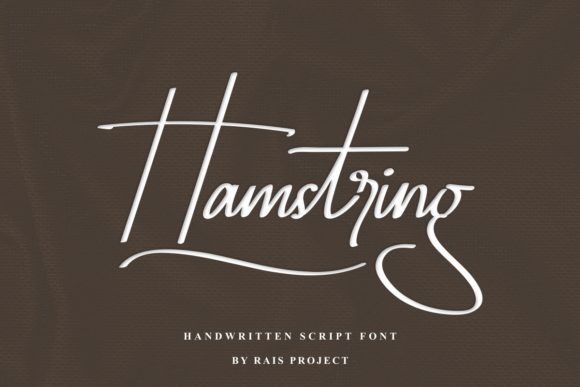
Embrace the Enchanting Hamstring Font: A Script Masterpiece for Your Creative Endeavors
Immerse yourself in the world of typography with Hamstring, a captivating script font that exudes elegance and sophistication. Its delicate strokes, reminiscent of a ballet dancer's poise, bring a touch of grace to your designs. Hamstring's clean, thin, and smooth vibe adds an aura of refinement, making it a perfect choice for a multitude of projects.
Unleash Your Creativity: Discover the Myriad Possibilities of Hamstring
With Hamstring, the possibilities are endless. Whether you're crafting eye-catching logos, designing stunning invitations, or adding a touch of flair to your social media posts, this font will elevate your creations to new heights. Its versatility extends to both digital and print media, making it an indispensable tool for graphic designers, crafters, and anyone seeking to make a lasting impression.
Leave a Lasting Impression with Hamstring: Your Signature Style Awaits
Elevate your email signature to new heights with the charm of Hamstring. Its refined strokes will add a touch of professionalism and personality to your correspondence, ensuring that your messages stand out and leave a lasting impression. Hamstring's delicate script will make a statement in any context, whether you're communicating with clients, colleagues, or friends.
Dive into the World of Hamstring: A Font Rooted in Quality and Craftsmanship
Hamstring is not just another font; it's a labor of love, meticulously crafted by RaisProject, a renowned font designer known for their dedication to excellence. Each stroke and curve has been carefully considered, resulting in a font that is both aesthetically pleasing and highly functional. Hamstring is PUA encoded, ensuring effortless access to glyphs and swashes, adding an extra layer of versatility to your design arsenal.